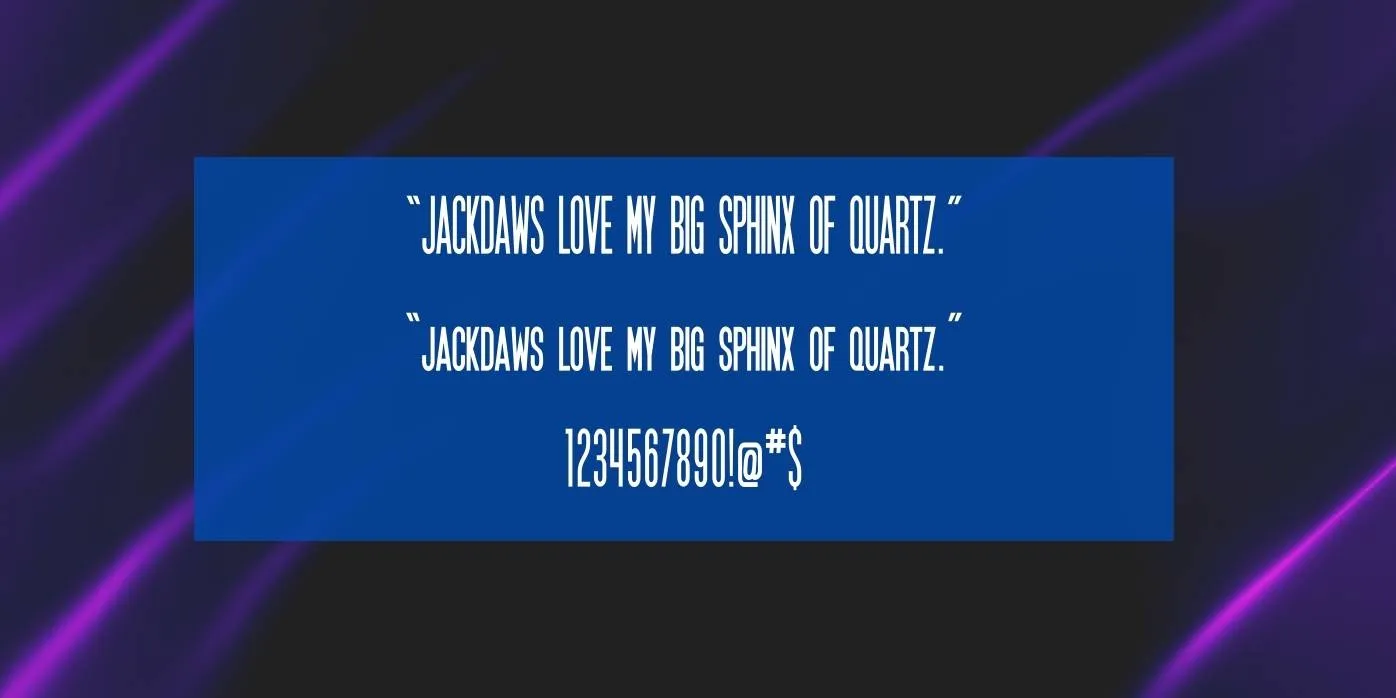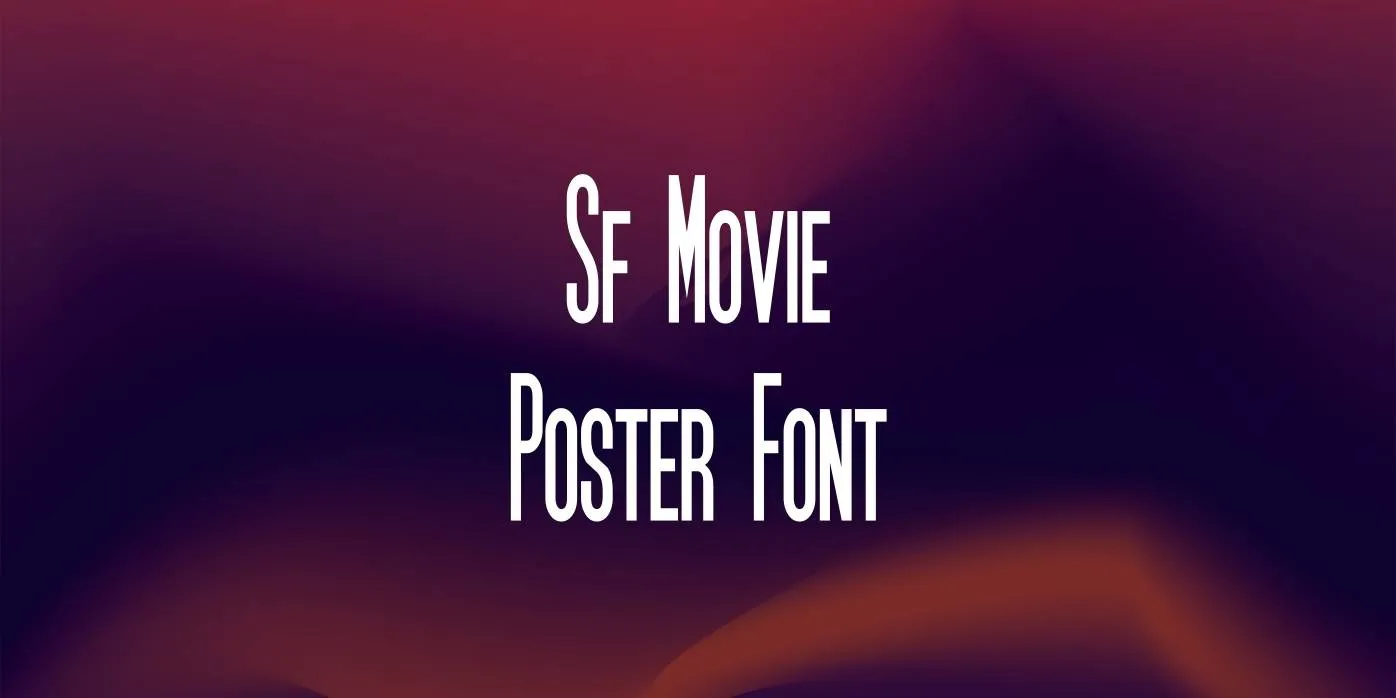
Sf Movie Poster Font
Sf Movie Poster Font is a very famous typeface that belongs to the sans serif font family. The most important feature of this typeface is that it supports many languages. It is perfect for Adobe Photoshop and Canva. This typeface was designed by Jaime Champlin and released through ShyFonts.
So, if you want to create a movie poster in any language, Sf Movie Poster Typeface will be a perfect choice for you. In addition, this typeface is very easy to read and it has a clean and modern look. Another similar font which is hansief font is perfect for different designs. It is not included on googles fonts.
So, if you are looking for a sans serif typeface that is both stylish and easy to read, then Sf Movie Poster Typeface is the right choice for you. This font is the perfect choice for creating movie posters in any language. It is easy to read and has a clean, modern look. Its generator tool is very classic for graphic projects.